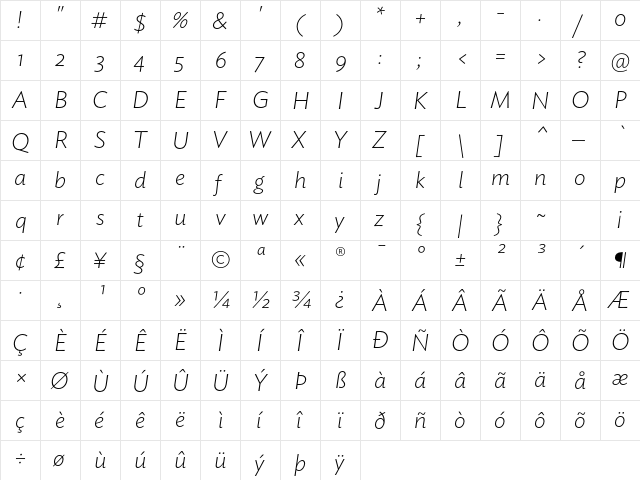
Ideal Sans Extra Light Italic
Design Context for Ideal Sans Typeface
Ideal Sans is a composed and adaptable typeface that performs quietly and consistently across a wide range of design contexts. Its italic angle brings a sense of urgency and motion to the letterforms. The delicate stroke weight brings airiness and refinement to layouts.
Pro Tip: Try Ideal Sans for annotation and caption copy alongside an upright companion — the contrast in angle creates a dynamic but ordered typographic system.